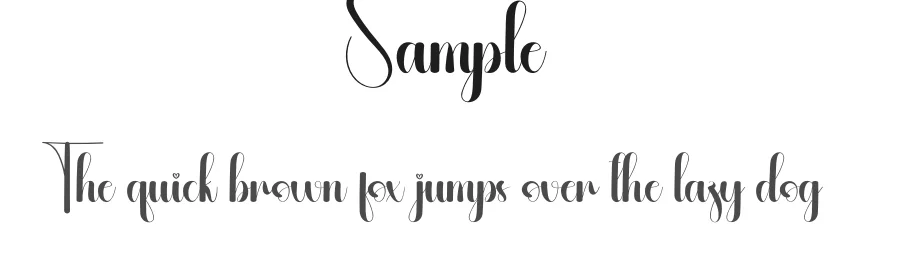
About Spring House Font
Spring House Specifications
| Font Family | Spring House |
| Full Name | Spring House |
| Glyph Count | 140 glyphs |
| PostScript Name | SpringHouseRegular |
Spring House ships with 1 OpenType feature you can switch on in apps that support them (Illustrator, InDesign, Affinity, Figma, CSS font-feature-settings).
Spring House supports 209 languages.
Spring House Font is a script font that shines as a display or heading face. Pair it with a clean sans-serif or serif font for body text β the contrast creates a clear hierarchy while the two styles stay balanced and easy to read.